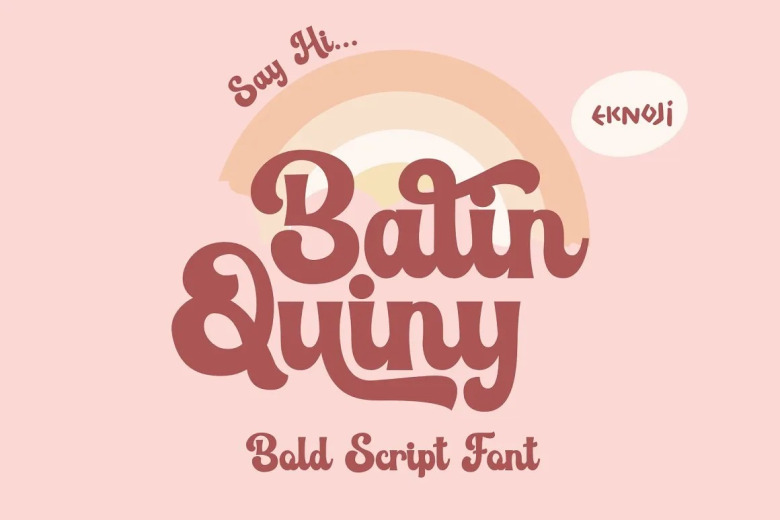
Balin Quiny Font
Balin Quiny is a beautiful and bold script calligraphy font designed to give your headlines and logotype projects a retro feel. With this font, your design will be read to be powerful, fearless, and energetic, and it puts much nostalgia into your work.
Balin Quiny Calligraphy Script Font